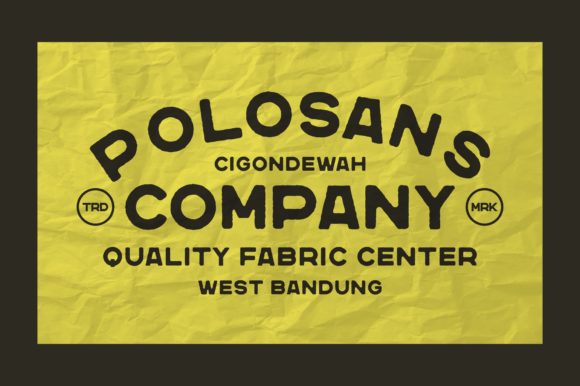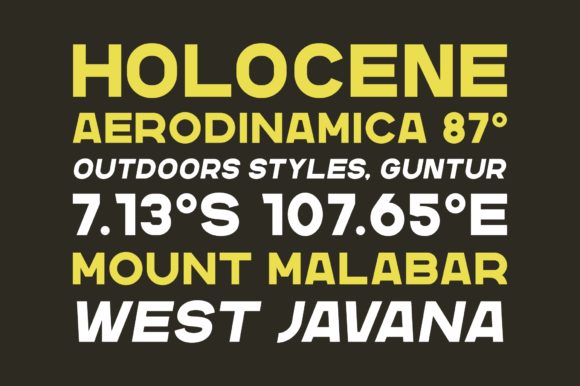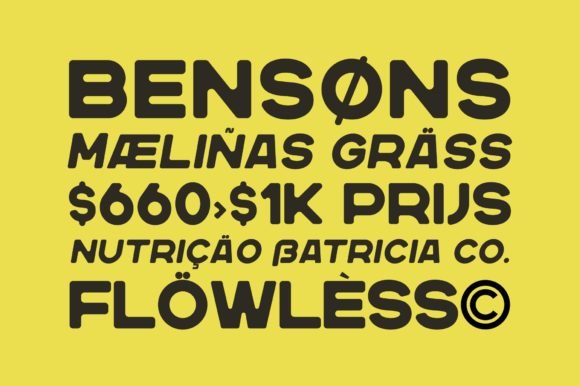
Introduction to Nersans Font
Nersans feels playfully nostalgic and delivers an incredible vintage aesthetic.
Use this sans serif font to add that special retro touch to any design idea you can think of .
Nersans Font offers exceptional quality and versatility, making it a valuable addition to your design toolkit. Whether you’re creating for personal projects or commercial use, Nersans Font delivers professional results.